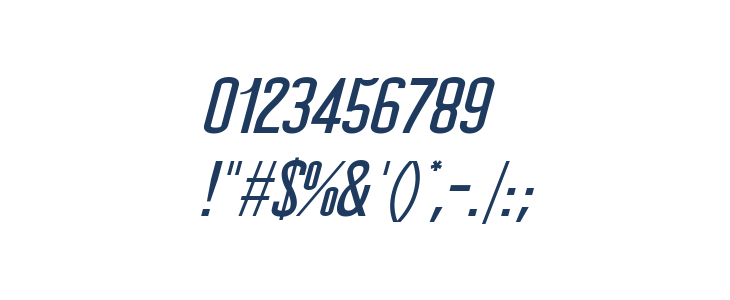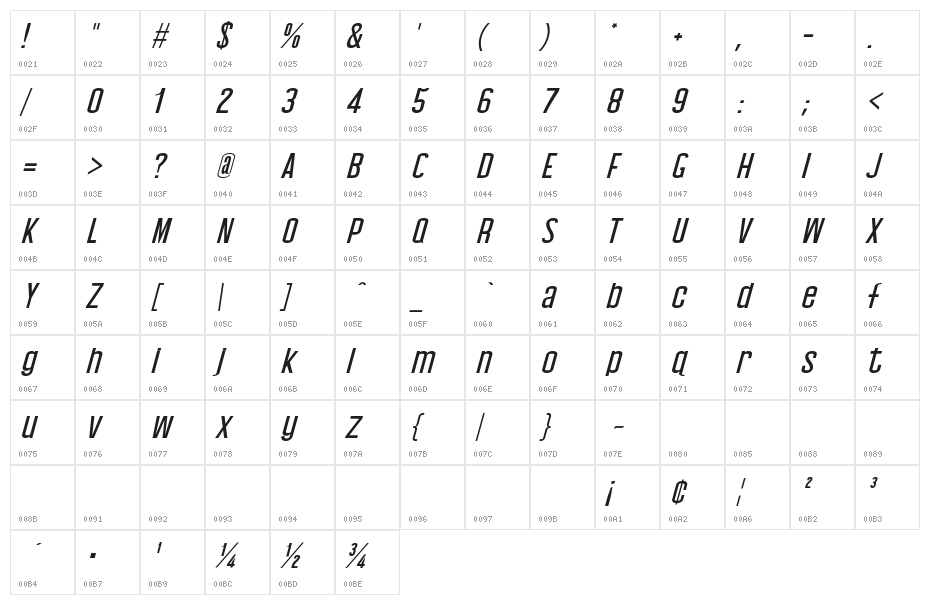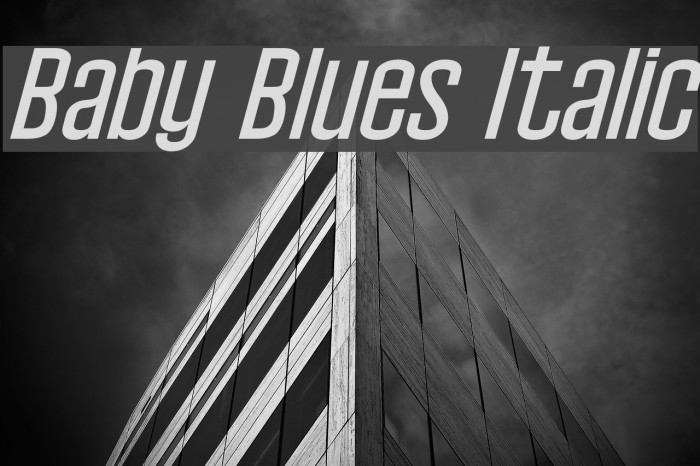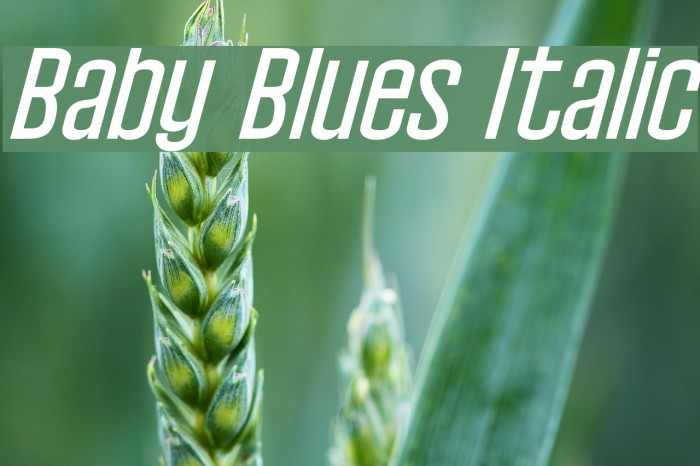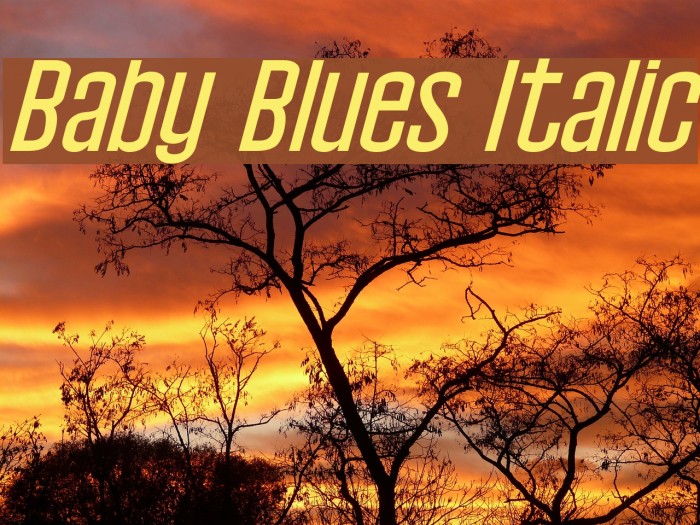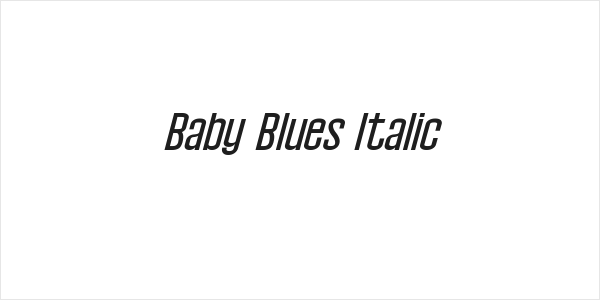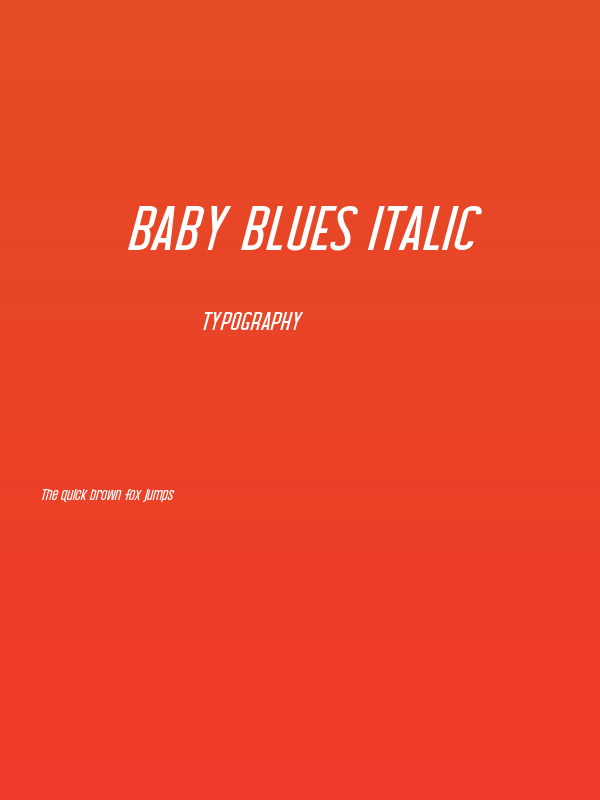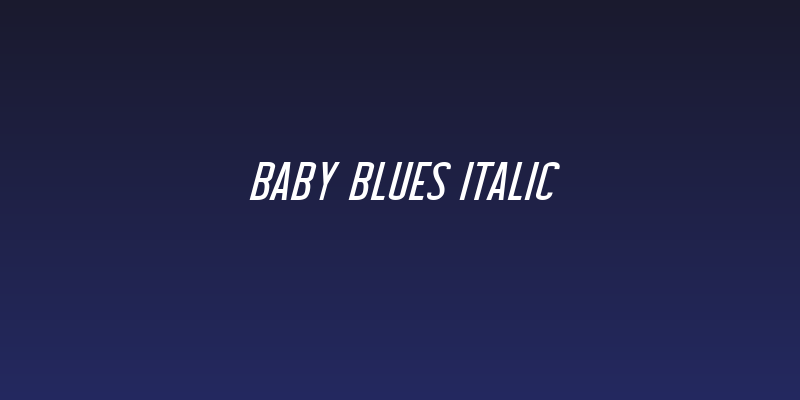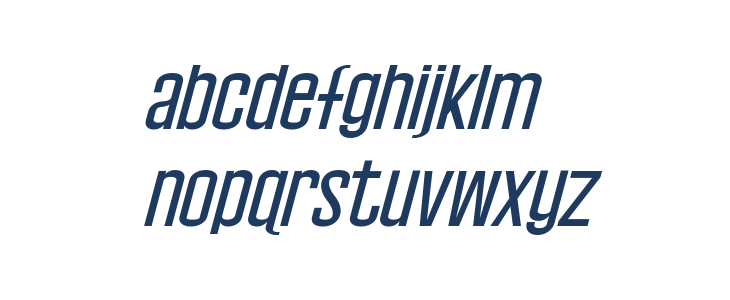
Baby Blues Italic Font
Baby Blues Italic Description
This font features a dynamic and modern italic style with a distinct slant, giving it a sense of movement and energy. The characters are elongated and slightly condensed, which adds to its sleek appearance. The strokes are consistent in weight, providing a uniform look across all characters. The font includes a full set of uppercase and lowercase letters, numerals, and a variety of special characters, making it versatile for different uses. Its clean lines and contemporary feel make it suitable for projects that require a modern and stylish touch.